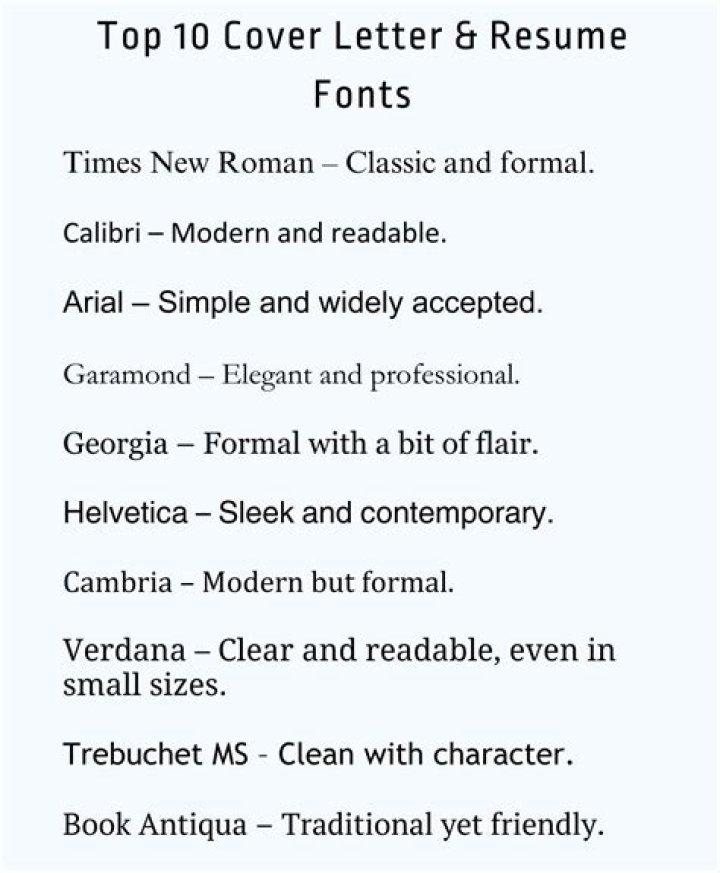
What font looks good on a resume?
Sans Serif fonts (or fonts without tails) are generally good fonts for resumes due to their high readability. There are a few Serif fonts, however, that are still accepted among employers as simple and professional—Cambria, Garamond, Times New Roman and Didot.
What is the best font and size for a resume 2021?
The ideal resume font size is between 10 and 12 pt. This is one of the reasons that resume font size is not a one-size-fits-all approach. If you choose to go with a font like Helvetica, Georgia, Tahoma, Verdana, or Trebuchet MS, you may want to reduce your font size since these fonts are naturally larger.
What is the best resume font size and format?
Best resume font sizes are: 11-12pt for normal text, 14-16pt for section titles and headers. The most-used resume formatting order is: Contact information, work experience, skills, and education.
Is size 11 font too small for resume?
No, size 11 font is not too small for a resume. In fact, size 10.5 font is even okay as long as it’s still easy for the hiring manager to read. Because some fonts are slightly smaller than others, always check that your font is readable no matter the size.
Does font matter on a resume?
When you’re writing your resume, your font choice does matter. It’s important to opt for a basic font—choose one that both hiring managers and applicant management systems can easily read. Your resume is no place to use difficult-to-read cursive, handwriting-style, or calligraphy fonts.
Is size 9 font too small for a resume?
Yes, size 9 font is too small for a resume. You should instead use a font size that’s at least 10.5 points to make sure your resume is immediately readable. If you go between 10.5 and 12 font, your resume should be clear enough, regardless of your chosen font.
Can I use 10.5 font resume?
No, 10.5 font is not too small for a resume. 10.5 font is simply the smallest size you can use on a resume that’s still readable. Try a 10.5-point font if you have a lot of relevant experience, achievements, skills, and certifications to put on your resume. Be aware that some fonts look smaller than others.
What is the best font to use for resume?
List of best fonts for resume. The following is a list of the best resume fonts to use when applying for a job: 1. Times New Roman. Times New Roman is widely-considered the most classic and traditional font to use on a resume. If you want to play it safe, this is the #1 font to use. 2. Arial. The Arial font is commonly used for official letters.
Is Garamond a good font for a resume?
Times New Roman is probably the most commonly chosen fonts for resumes—the very reason you should avoid it, and why it appears on our “Worst” list. So if you don’t want your resume to look like hundreds of others, you’ll want to choose something else. And Garamond is a great alternative.
Is Cambria a good font for a resume?
The font itself is very sturdy and can stand on it’s own very well. We’d recommend using Cambria as an alternative to Times New Roman if you’re looking to emphasize more parts of your work experience or resume in general.
Is Didot a good font for a resume?
Didot is a good resume font, but it’s best used for your header — normally either your name or resume headline. You should use a different font for the body to make the text more readable. This modern resume font makes your name or resume headline pop off the page. However, its thin strokes make it difficult to read at smaller font sizes.